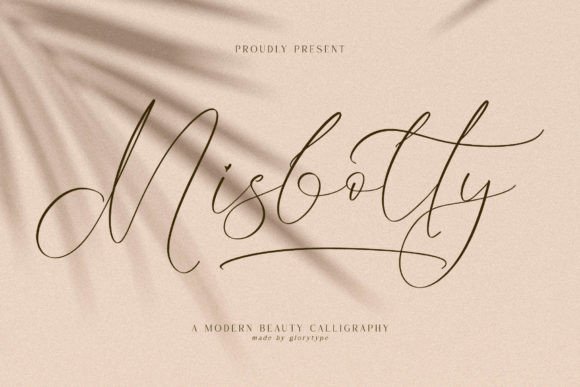
Journey into the realm of elegance and charm with Misbotty Font, a signature script font crafted to leave you spellbound. Designed by the renowned Glorytype Studio, Misbotty captivates with its delicate strokes and perfectly balanced letters, forming a symphony of visual harmony.
Immerse yourself in the beauty of Misbotty's curves, each meticulously crafted to evoke a sense of grace and sophistication. Experience the joy of creating stunning designs that resonate with your audience, leaving a lasting impression of elegance and refinement.
Unleash your creativity with Misbotty's incredibly versatile style, effortlessly adapting to a myriad of design projects. From enchanting logos that exude timeless charm to captivating social media graphics that command attention, Misbotty is your perfect companion in the world of design.
Step into a world of elegance and let Misbotty's delicate touch transform your designs into masterpieces. Its ethereal essence will elevate your projects, captivating your audience with its undeniable beauty and charm.